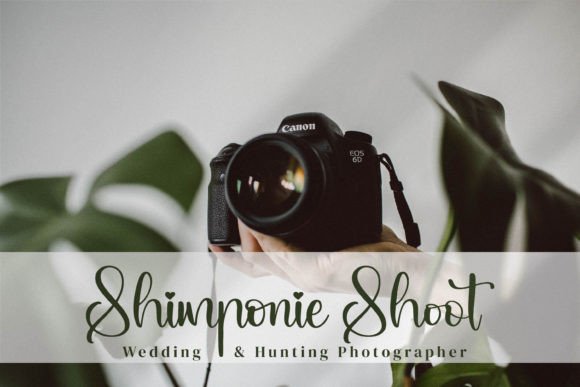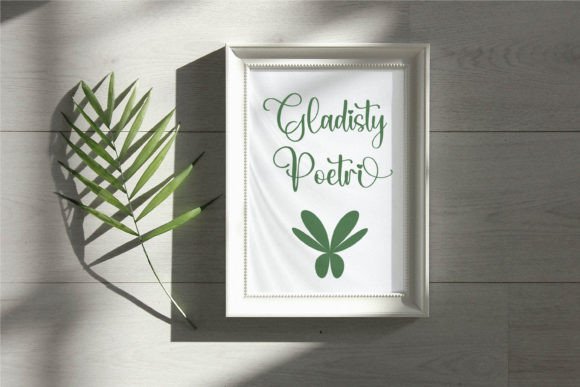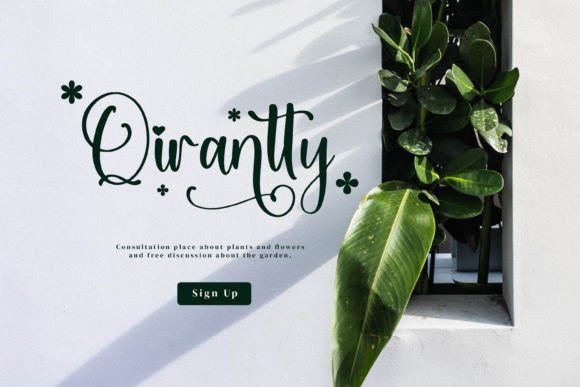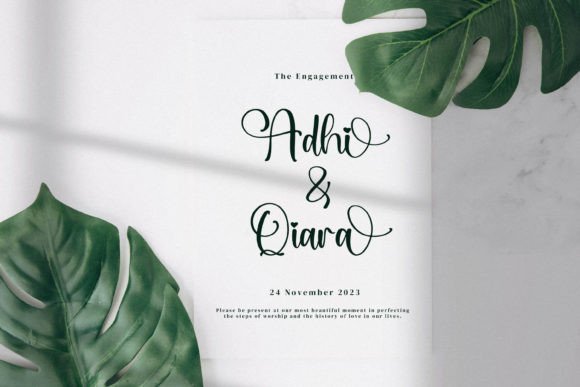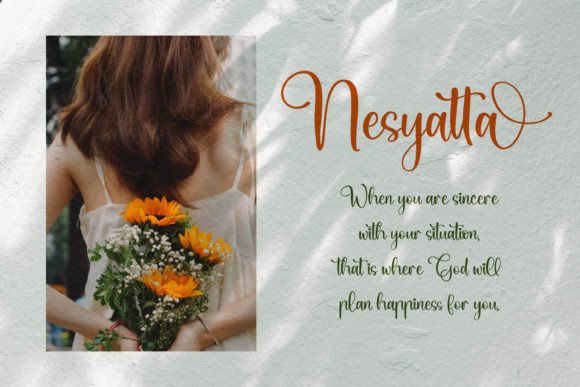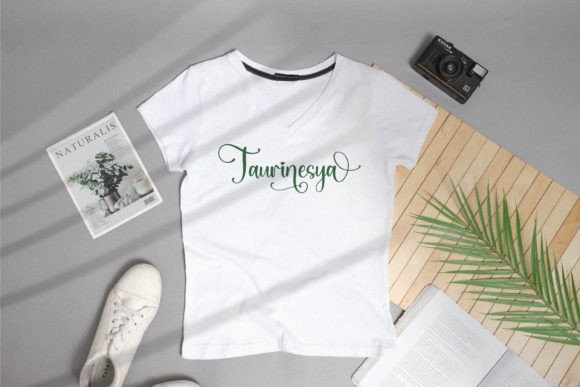
Introduction to Qianetta Font
Qianetta is a sweet and delicate handwritten font.
Dainty and joyful, this font will be ideal for writing wedding invitations, cards, or any other design that may need a romantic, personalized touch .
Key Features of Qianetta Font